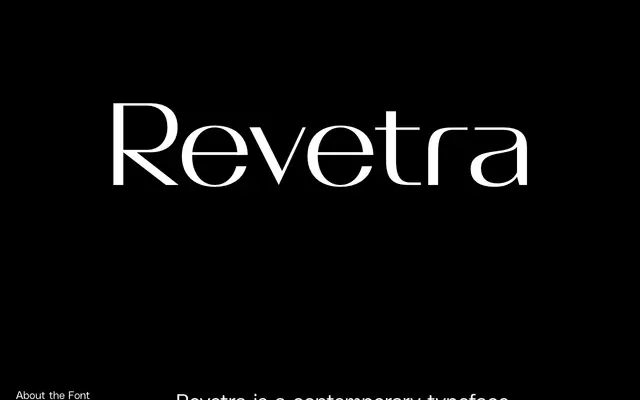
Revetra
A high-contrast display serif with modernist proportions and subtle retro inflections, suited to editorial and luxury brand contexts.
Four weights from Light to Bold carry strong stroke contrast across a clean, modernist structure, with period detailing that nods to mid-century display typography without committing to pastiche. The family is positioned for headline and editorial work where elegance and visual impact are the primary requirements. No italics or condensed cuts are available, keeping it a focused display tool rather than a workhorse text family.
Revetra's high-contrast letterforms and modernist aesthetic place it firmly in the display serif category, with strong stroke variation typical of a Didone or Didone-adjacent style aimed at editorial and luxury applications.